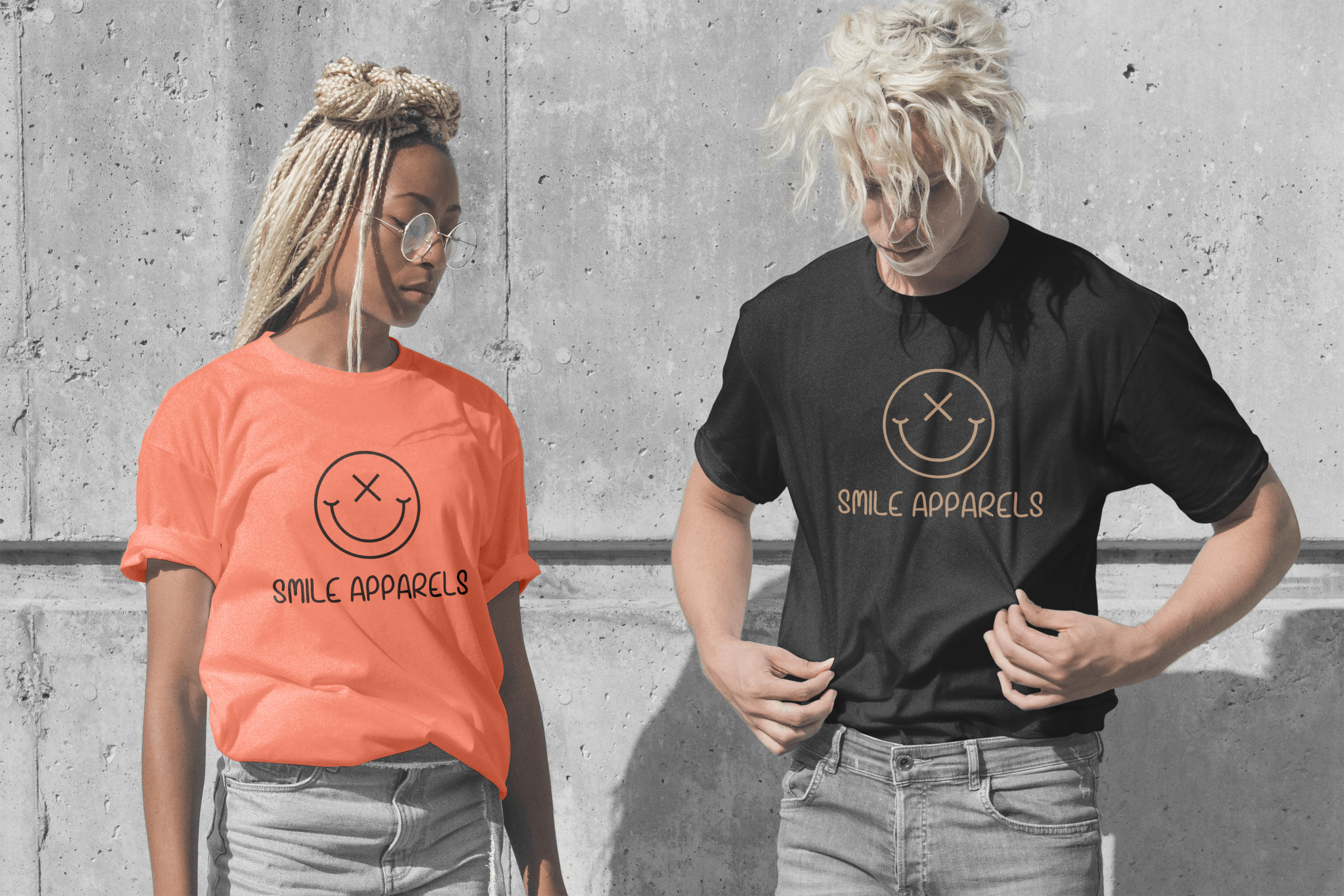
Orange Jelly Handwritten Font
This is a friendly, cute and informal handwritten font. No matter the topic, this font will be an incredibly asset to your fonts’ library, as it has the potential to elevate any creation.